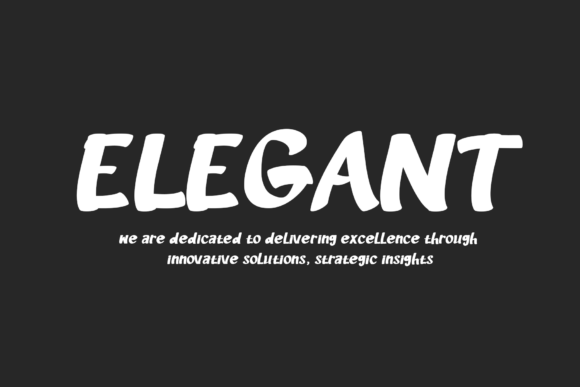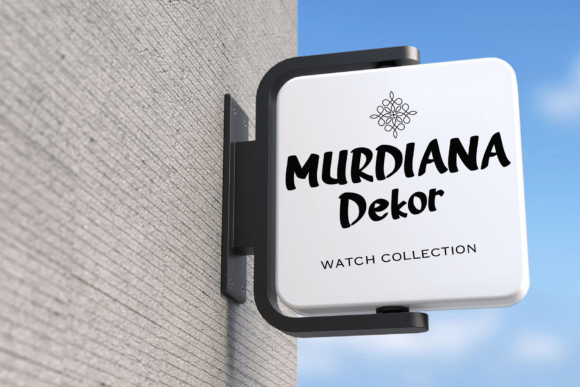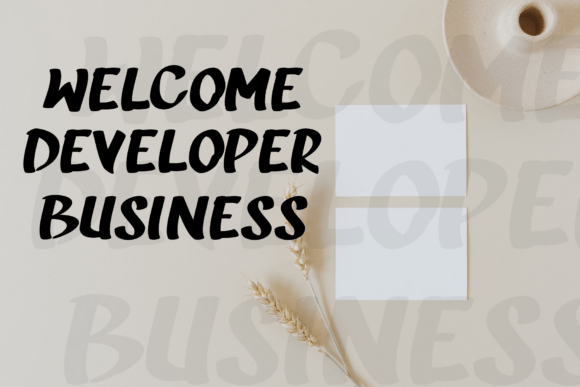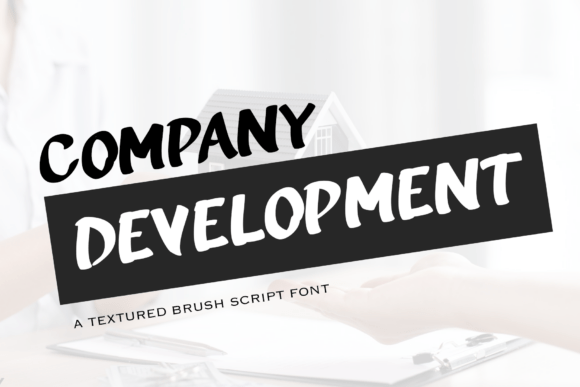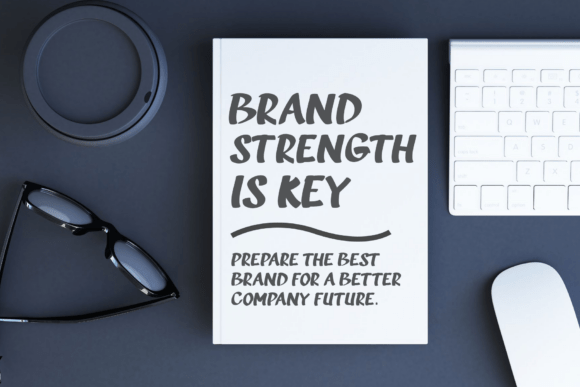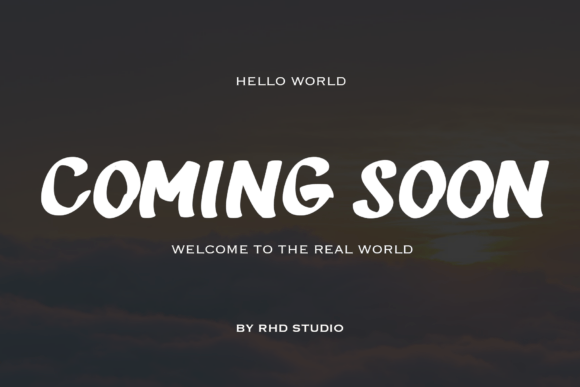
Gardinal Font: A Stunning Textured Brush Script for Your Creative Projects
Are you tired of using the same old fonts in your designs? Look no further than the Gardinal Font, a beautiful textured hand brush font that is sure to add a touch of elegance and sophistication to your work. In this article, we’ll take a closer look at the Gardinal Font, its unique features, and how you can use it to elevate your designs.
What is Gardinal Font?
Gardinal Textured Brush Script is a stunning hand brush font that has been carefully crafted to give your designs a personal and artistic touch. The Gardinal Typeface is a flowing and stylish brush font display, created with the help of a pen tablet. This unique font is inspired by the beautiful and intricate style of hand brush lettering, making it perfect for designers and crafters who want to add a touch of whimsy and personality to their work.
Key Features of Gardinal Font
- Textured Brush Script: The Gardinal Font features a beautiful textured brush script that gives it a unique and organic feel.
- Hand-Crafted with a Pen Tablet: The font was created with the help of a pen tablet, giving it a personal and artistic touch.
- Flowing and Stylish: The Gardinal Typeface is a flowing and stylish brush font display that is perfect for adding a touch of elegance to your designs.
- Unique and Beautiful Style: The font features a unique and beautiful style that is sure to inspire your creativity and add a touch of personality to your work.
Who is Gardinal Font for?
The Gardinal Font is perfect for designers and crafters who want to add a touch of elegance and sophistication to their work. Whether you’re a professional designer or a DIY crafter, this font is sure to inspire your creativity and help you create stunning designs. Some examples of projects that the Gardinal Font would be perfect for include:
- Branding and Packaging: Use the Gardinal Font to add a touch of elegance and sophistication to your branding and packaging designs.
- Invitations and Stationery: The font is perfect for creating beautiful invitations and stationery that feature a personal and artistic touch.
- Signage and Displays: Use the Gardinal Font to create stunning signage and displays that are sure to grab attention.
- Digital and Print Media: The font is perfect for use in digital and print media, including magazines, brochures, and flyers.
Why Choose Gardinal Font?
There are many reasons why you should choose the Gardinal Font for your next design project. Here are just a few:
- Unique and Eye-Catching: The Gardinal Font features a unique and eye-catching style that is sure to grab attention.
- High-Quality Design: The font has been carefully crafted to ensure that it is of the highest quality and features a beautiful textured brush script.
- Easy to Use: The Gardinal Font is easy to use and can be easily integrated into your design projects.
- Versatile: The font is versatile and can be used in a variety of design projects, from branding and packaging to invitations and stationery.
In conclusion, the Gardinal Font is a stunning textured hand brush font that is sure to add a touch of elegance and sophistication to your designs. With its unique and beautiful style, high-quality design, and ease of use, this font is perfect for designers and crafters who want to create stunning designs that stand out from the crowd. So why wait? Get inspired by the Gardinal Font and add it to your favorite designs today!